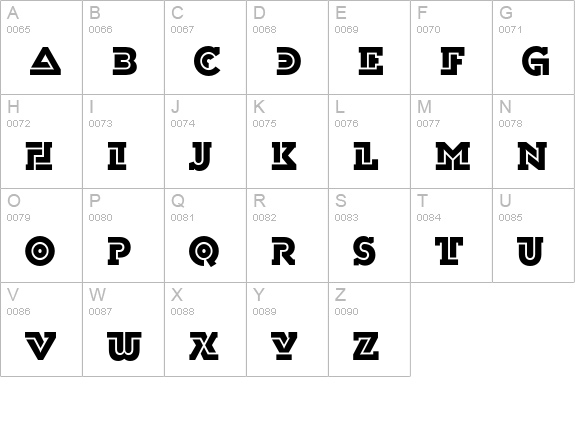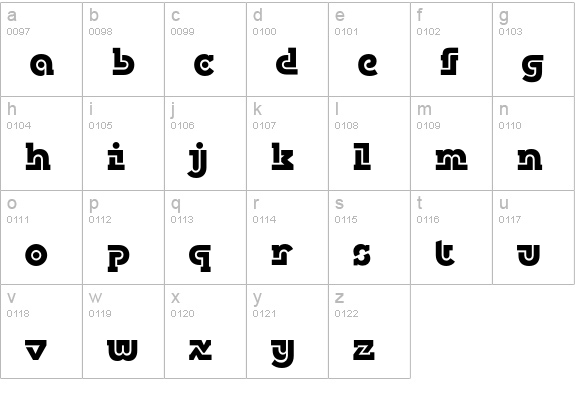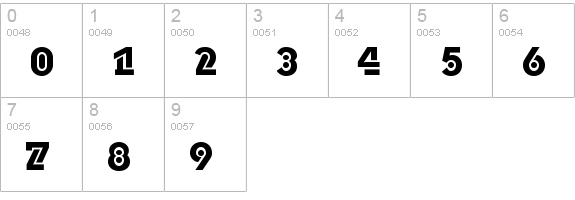
PT DublonBrus Bold Cyrillic Font Details
PT DublonBrus Bold Cyrillic is a strong, high-contrast variant in the PT typeface family \xE2\x80\x94 well suited to headlines, attention-grabbing titles, and strong calls-to-action.
PT DublonBrus Bold Cyrillic font is a stunning display typeface that exudes elegance and sophistication. With its bold strokes and intricate details, this font is perfect for making a statement in your designs. The Cyrillic characters add a unique touch, making it ideal for projects that require a touch of Slavic charm. What's even better is that PT DublonBrus Bold Cyrillic font is available for free download at FontsMarket.com. So go ahead and enhance your projects with this exquisite font that is sure to leave a lasting impression.